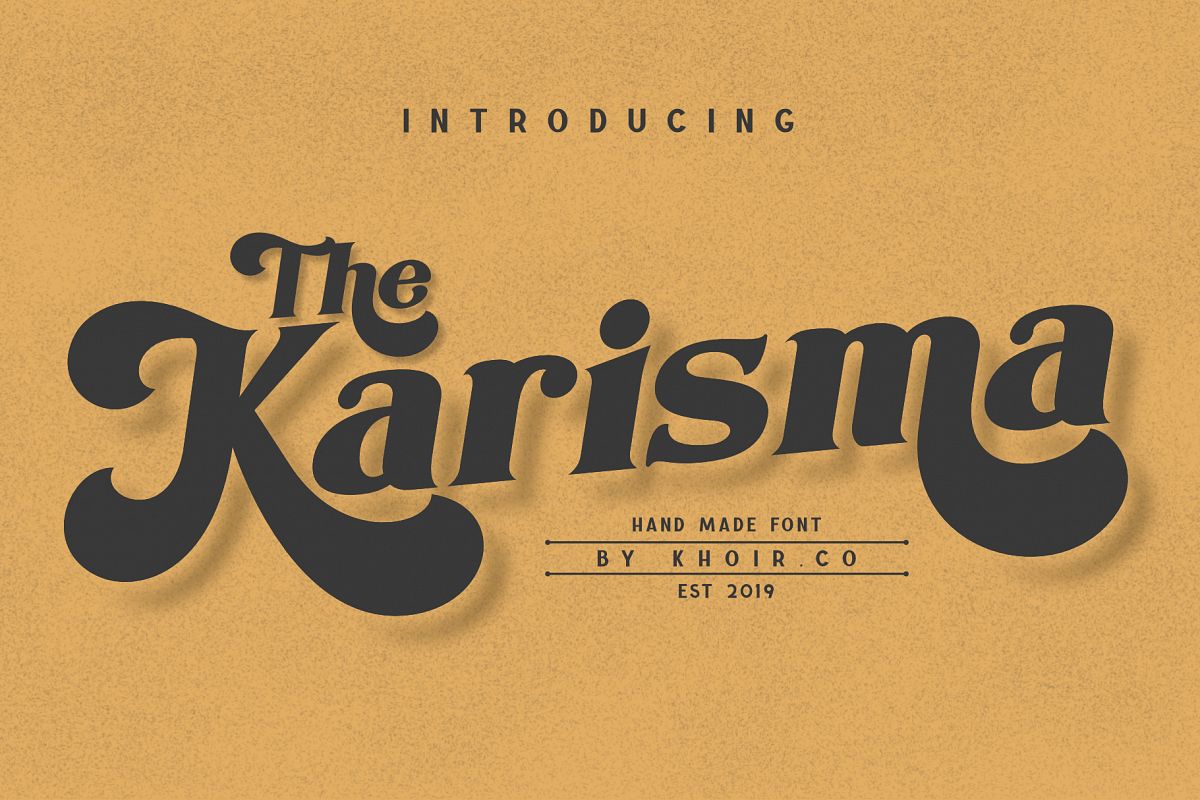
Karisma
Hello everyone, How are you?, I hope you are fine there, KHOIR has a new font variant. enjoyIntroducing the new Karisma font, a retro-style serif font inspired by typographic designs from the 60s to the 70s, Karisma has a variety of OpenType Features fonts, so that it can help you create the design you want, so what are you waiting for?
• Uppercase Characters
• Lowercase Characters
• Foreign Languages Support: ÀÁÂÃÄÅÆÇÈÉÊËÌÍÎÏÐÑÒÓÔÕÖØÙÚÛÜÝßàáâãäåæçèéêëìíîïñòóôõöøùúûüýÿ